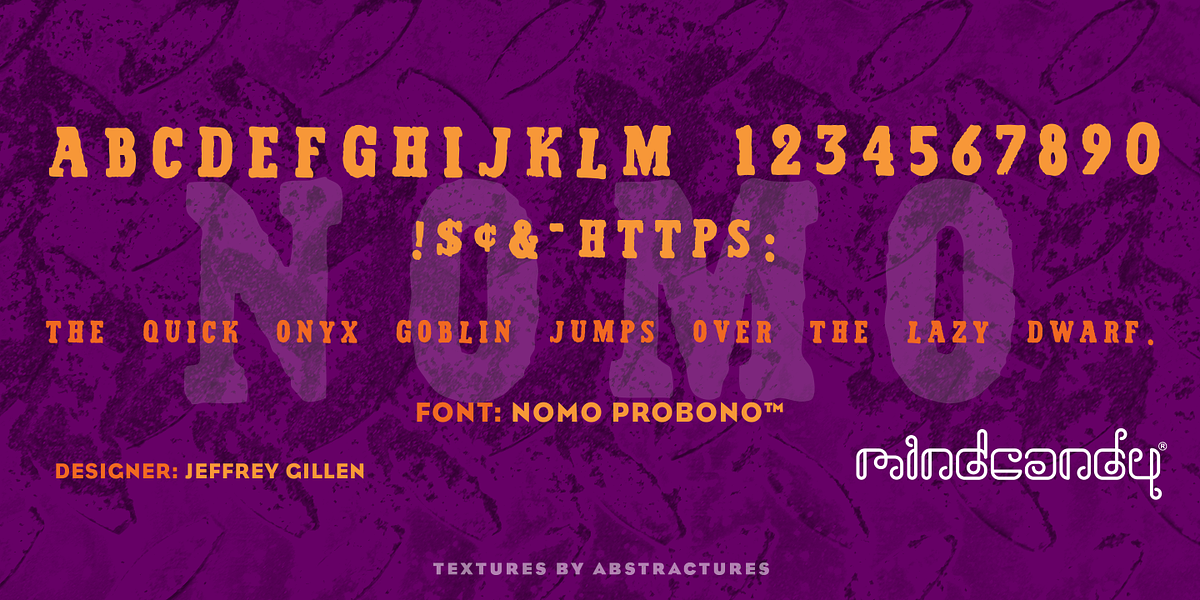
Nomo Probono™
This all-caps font has a distinct wood type aesthetic with a rough texture and bouncy feel. It's designed for display purposes and would be suitable for headlines, posters, or other eye-catching applications.